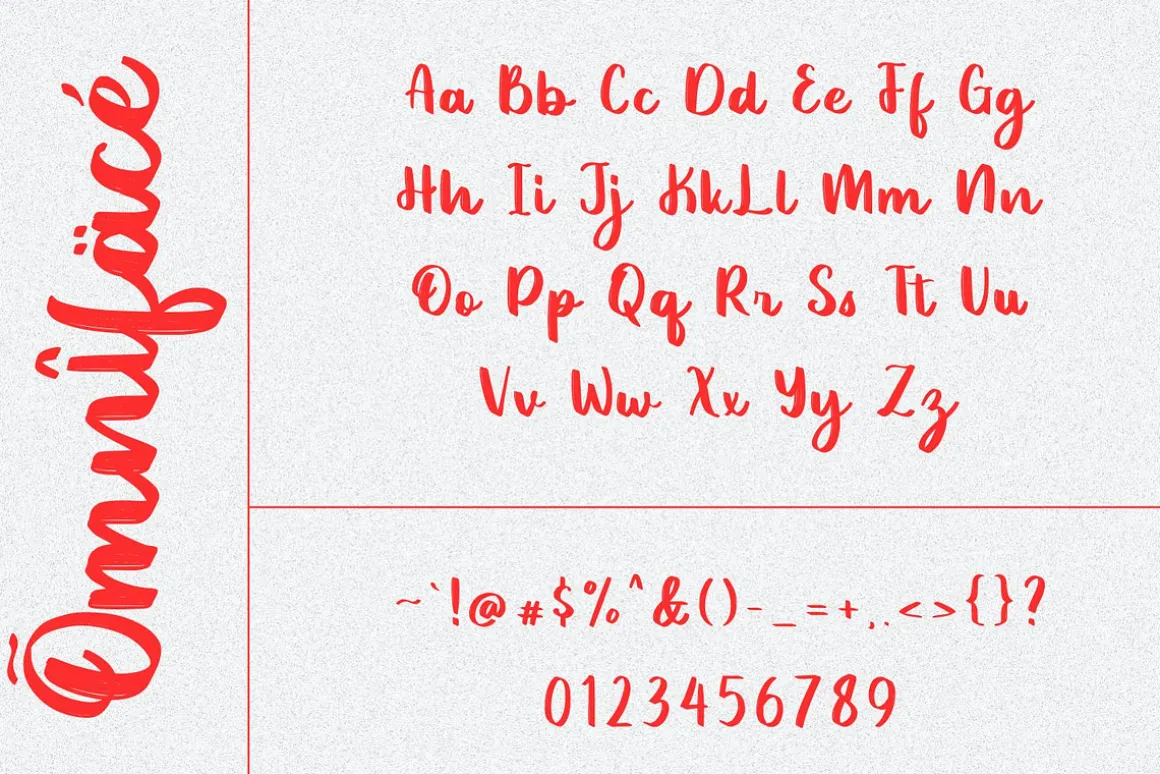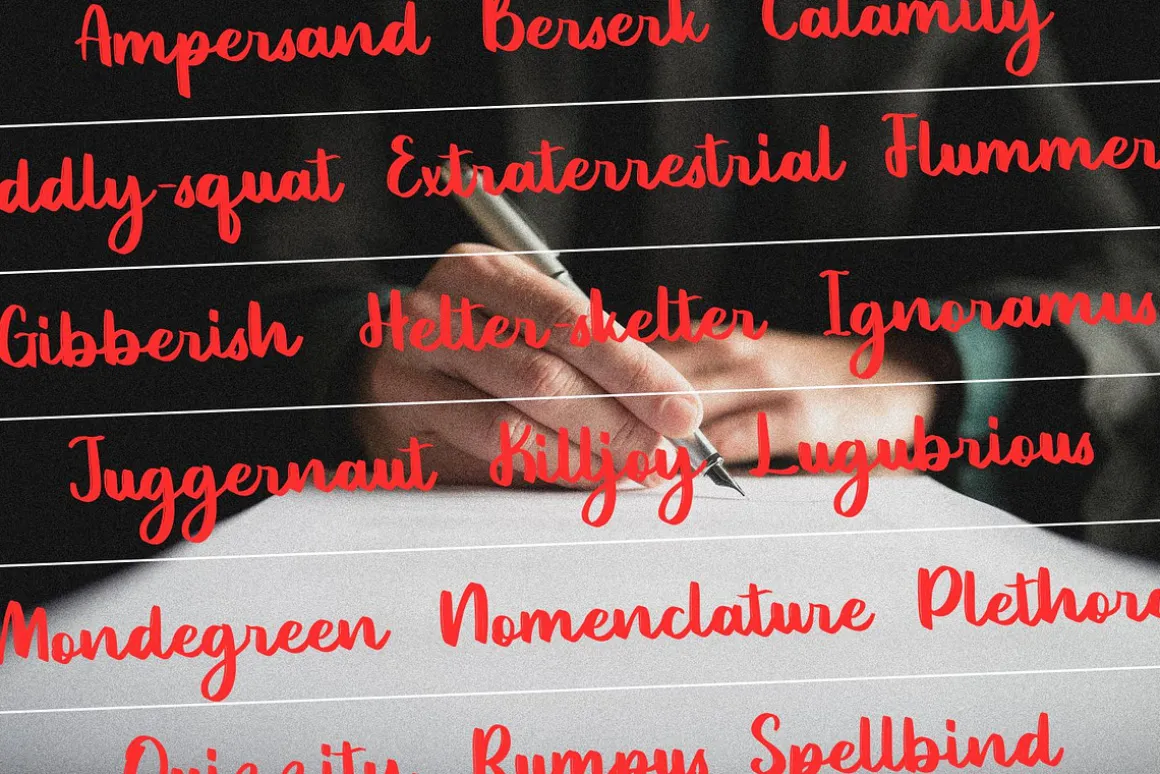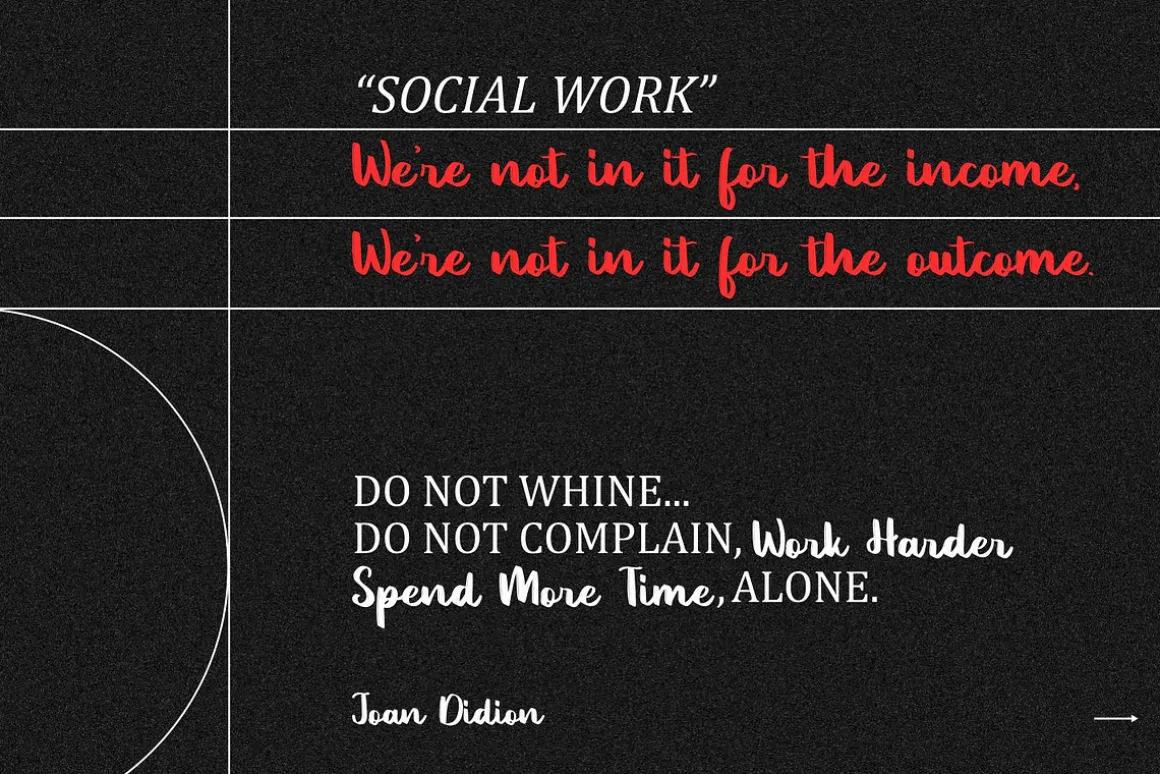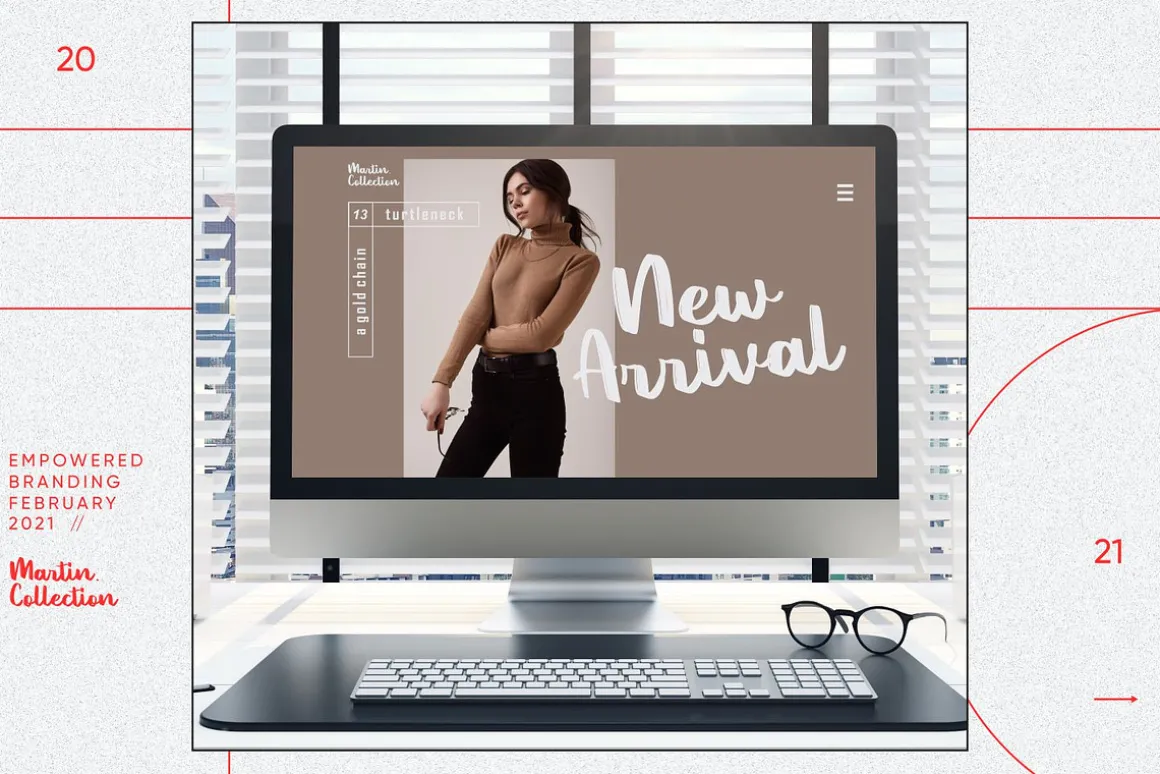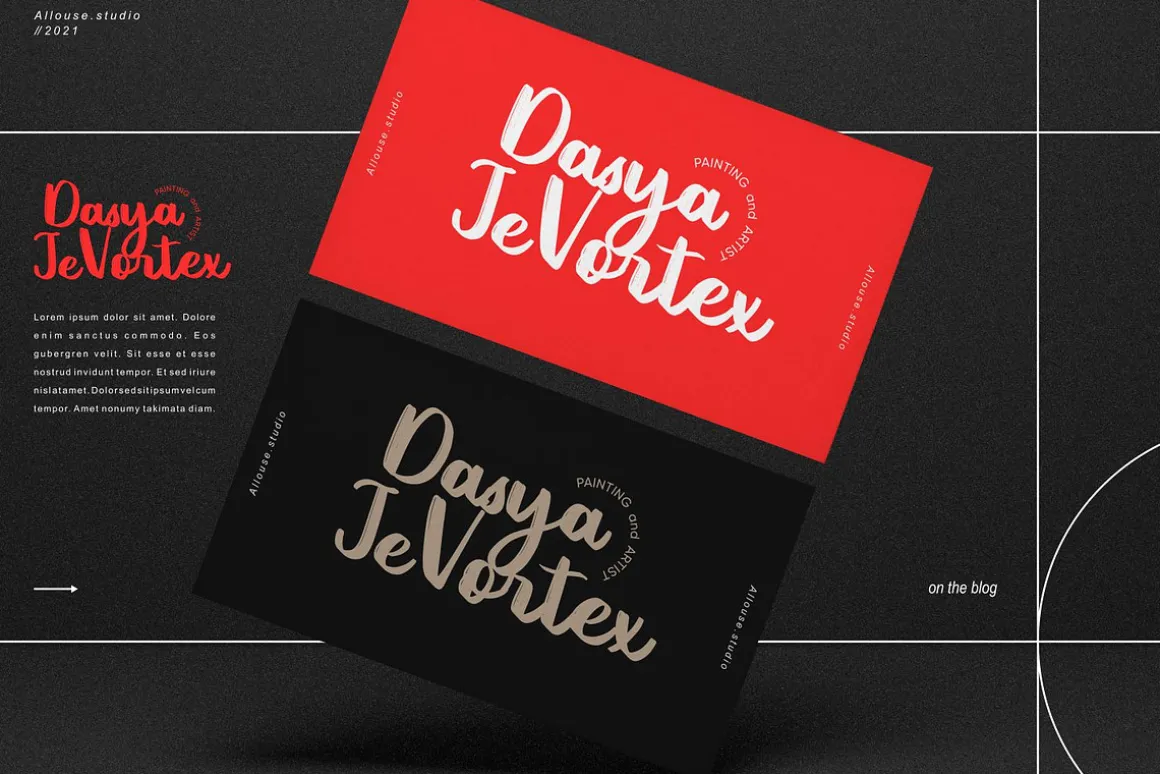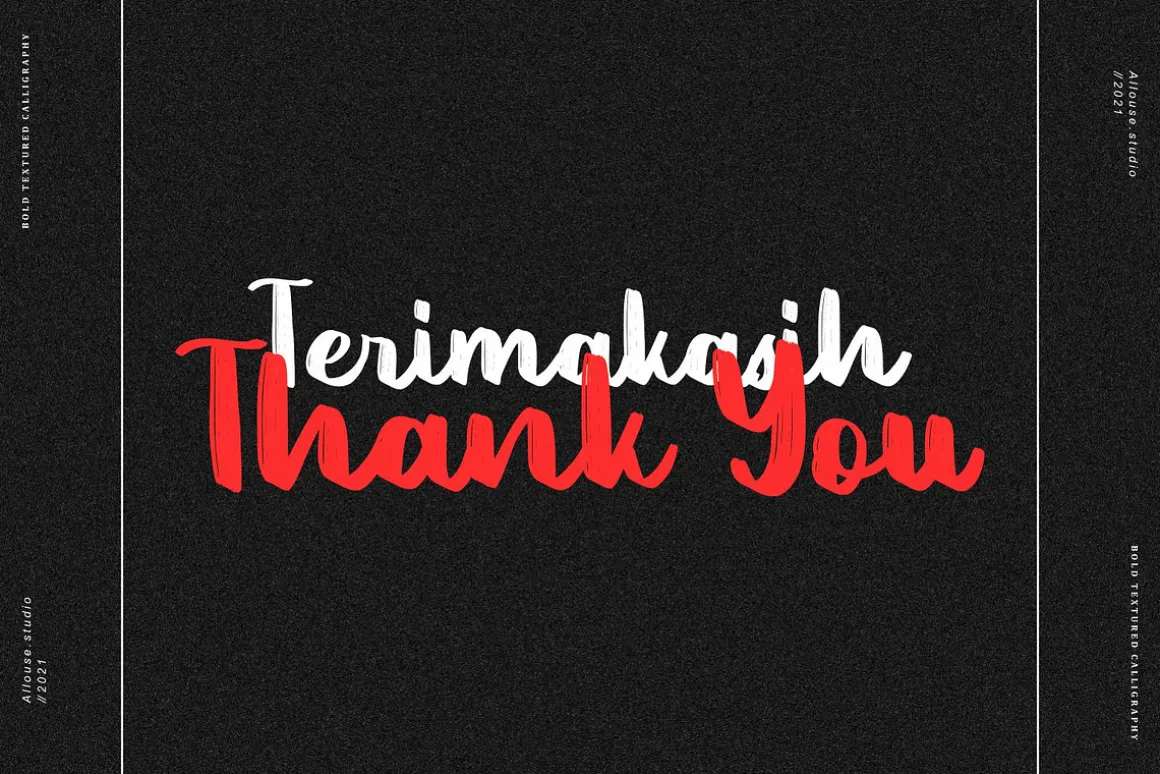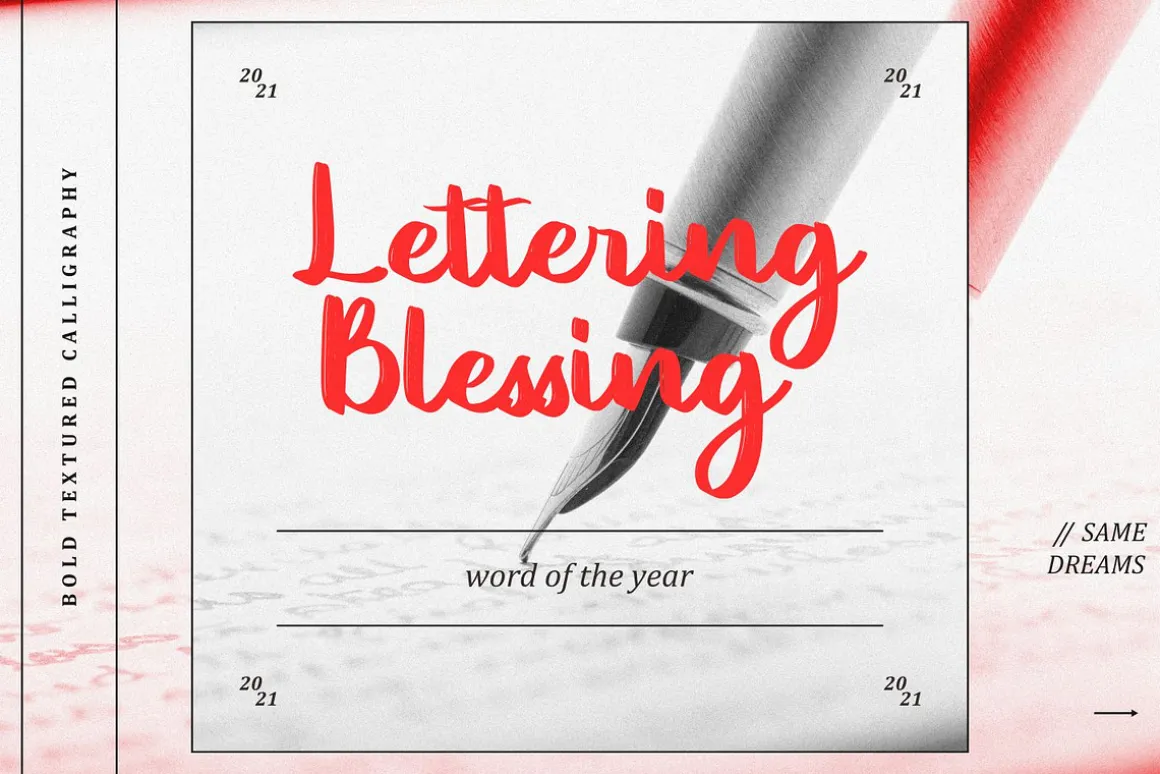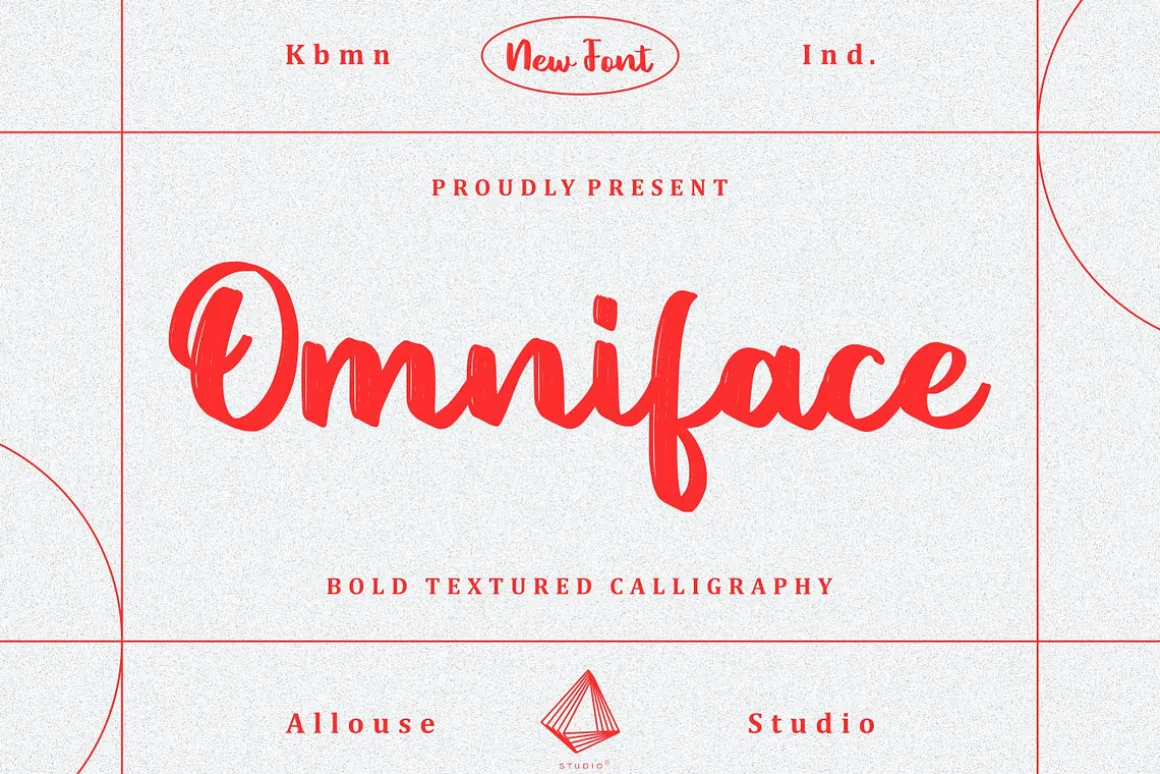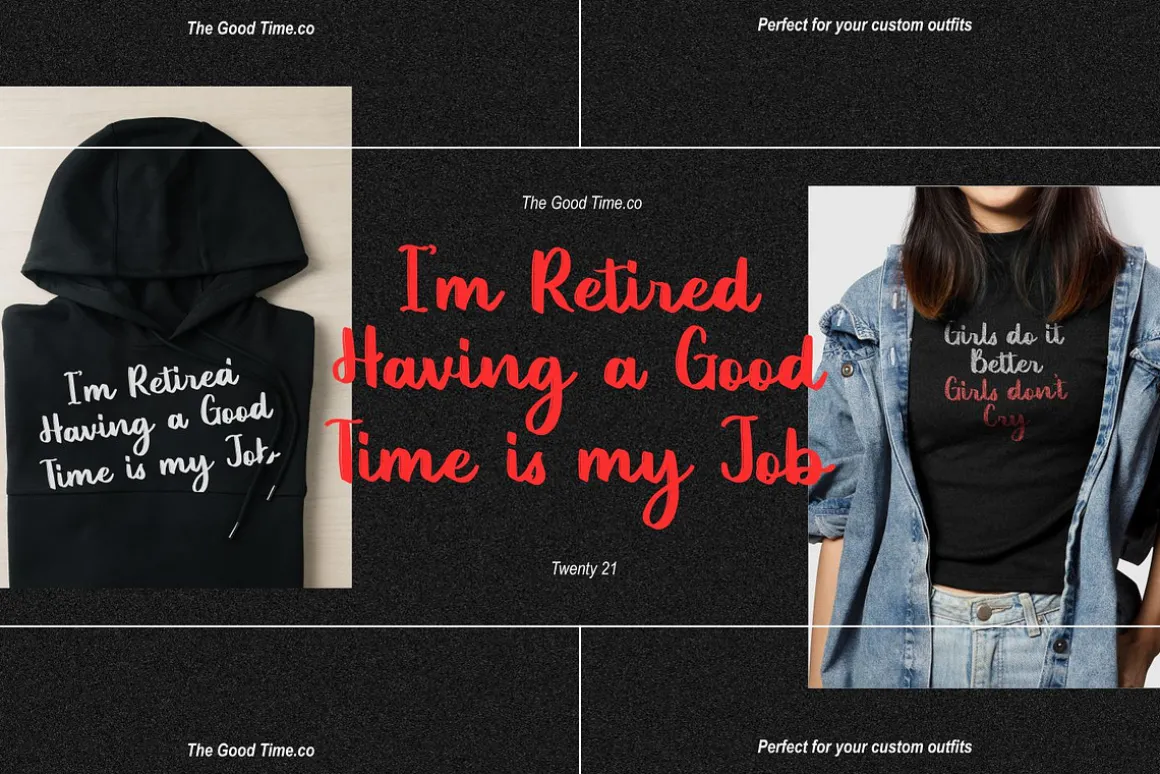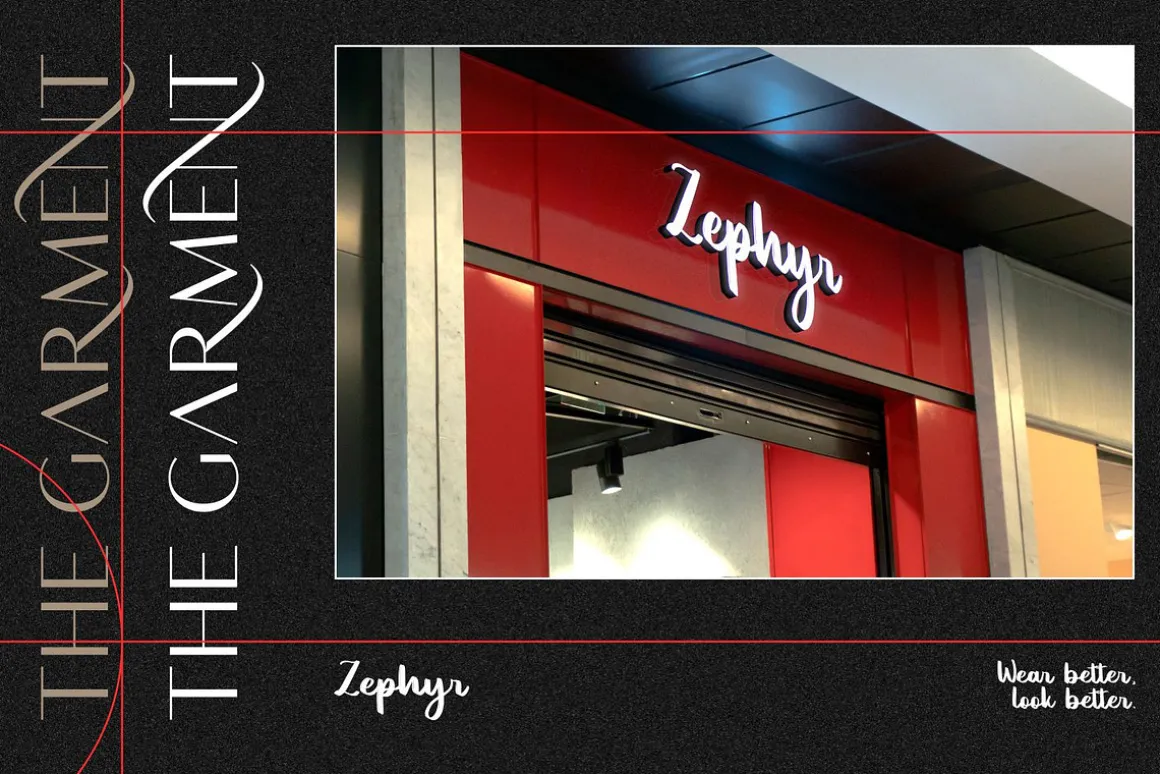
Introducing by Allouse.Studio
Proudly Present, Omniface
Omniface is a Bold Textured Calligraphy Font.
Omniface is perfect for product packaging, branding project, megazine, social media, wedding, or just used to express words above the background.